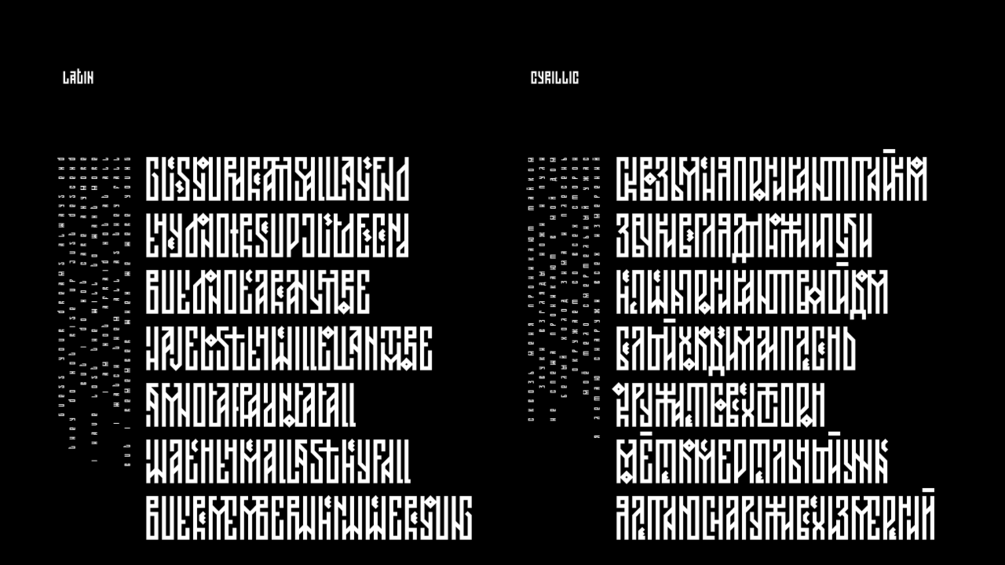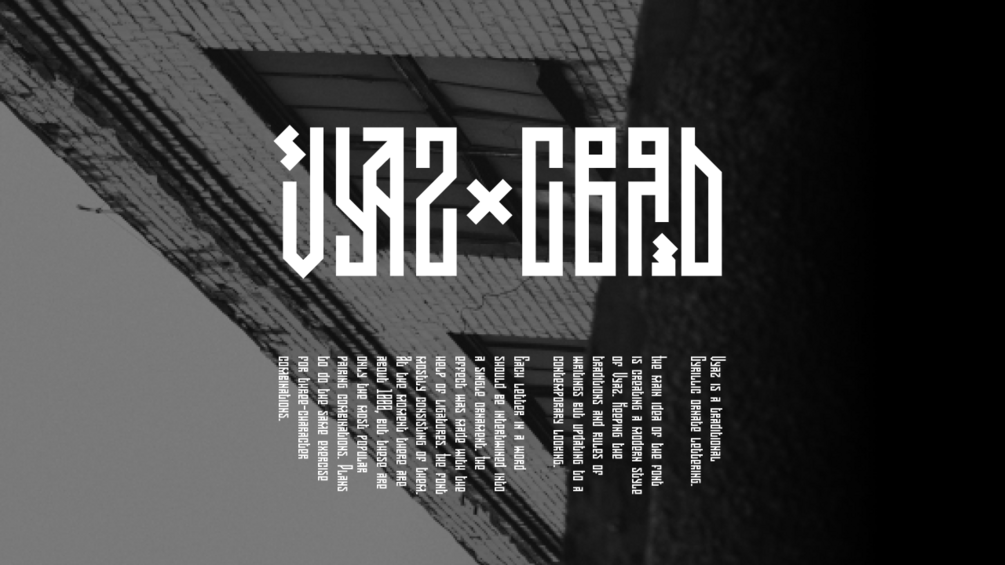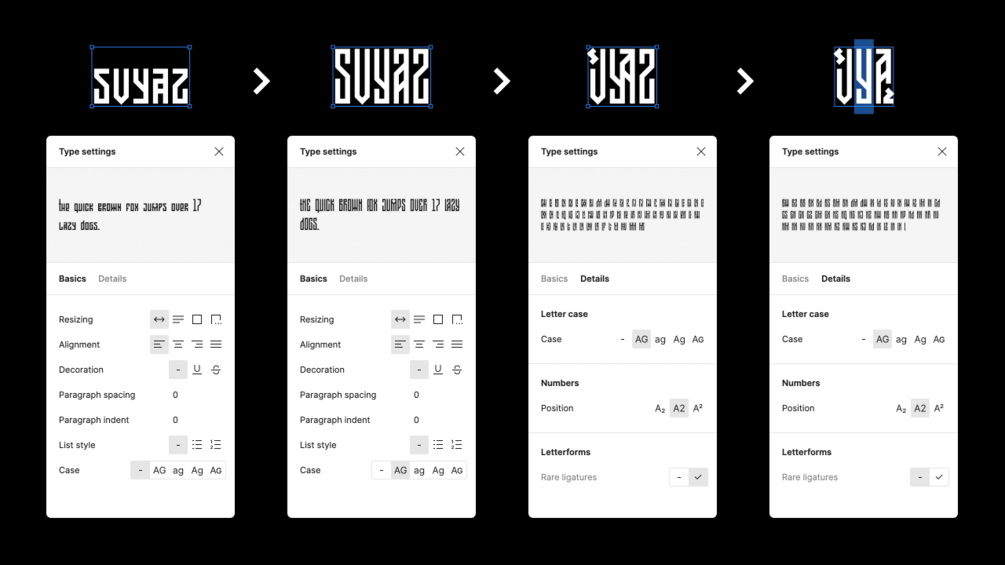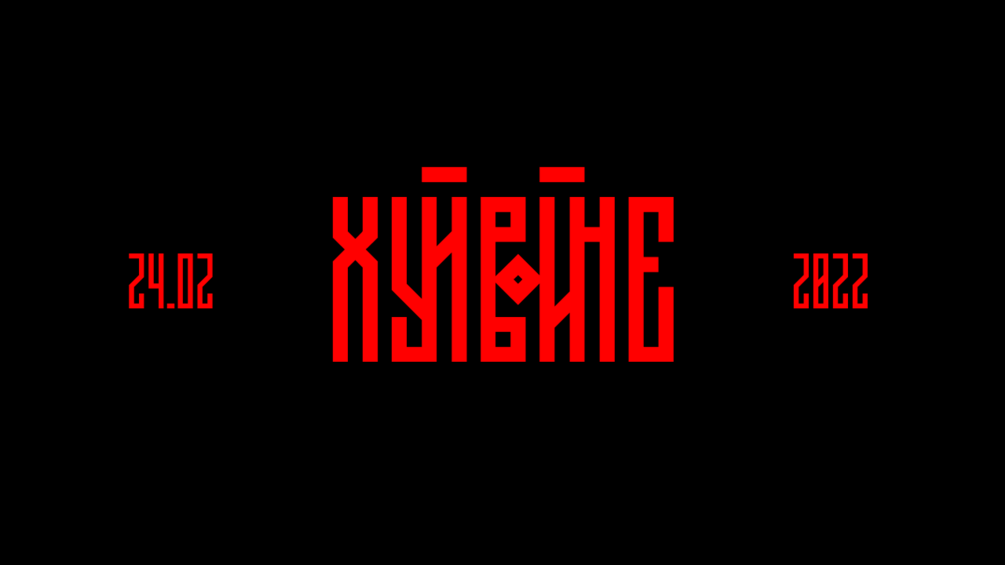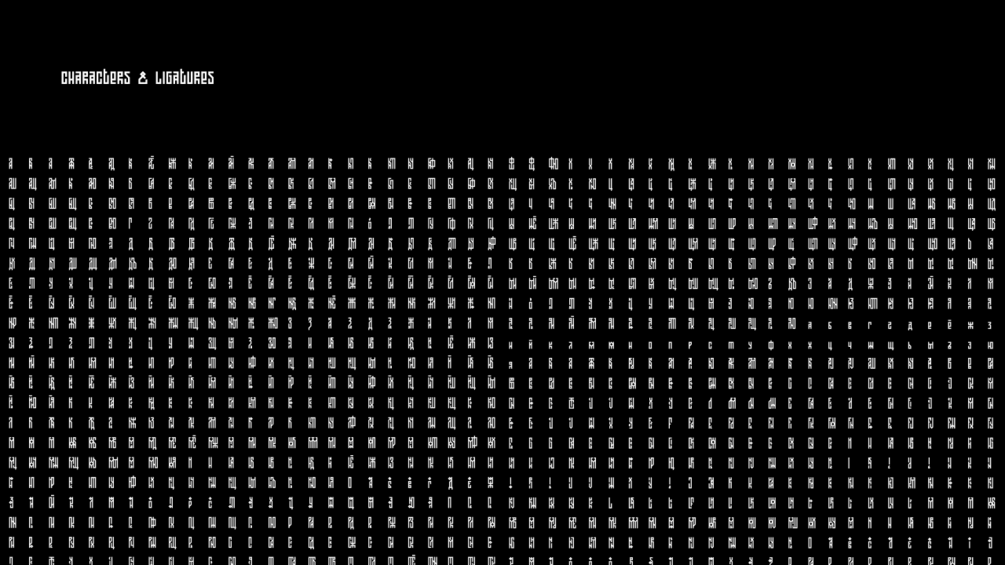
Svyaz - free font (latin and cyrillic)
The main idea of ​​the font is to create a modern style of Vyaz (a traditional Cyrillic ornate lettering). Keeping the traditions and rules of writings but updating to a contemporary looking.
The font includes Latin and Cyrillic laters + over 1000 their ligatures. Use uppercase with ligatures to get the Vyaz effect.